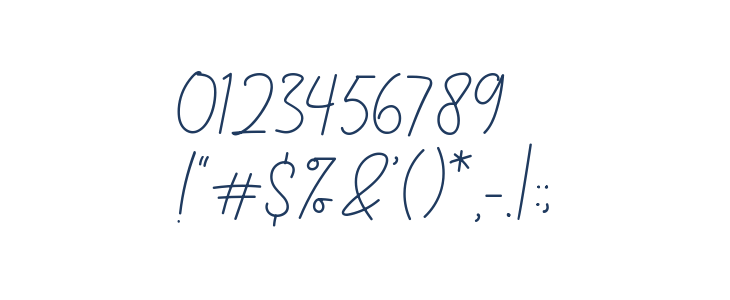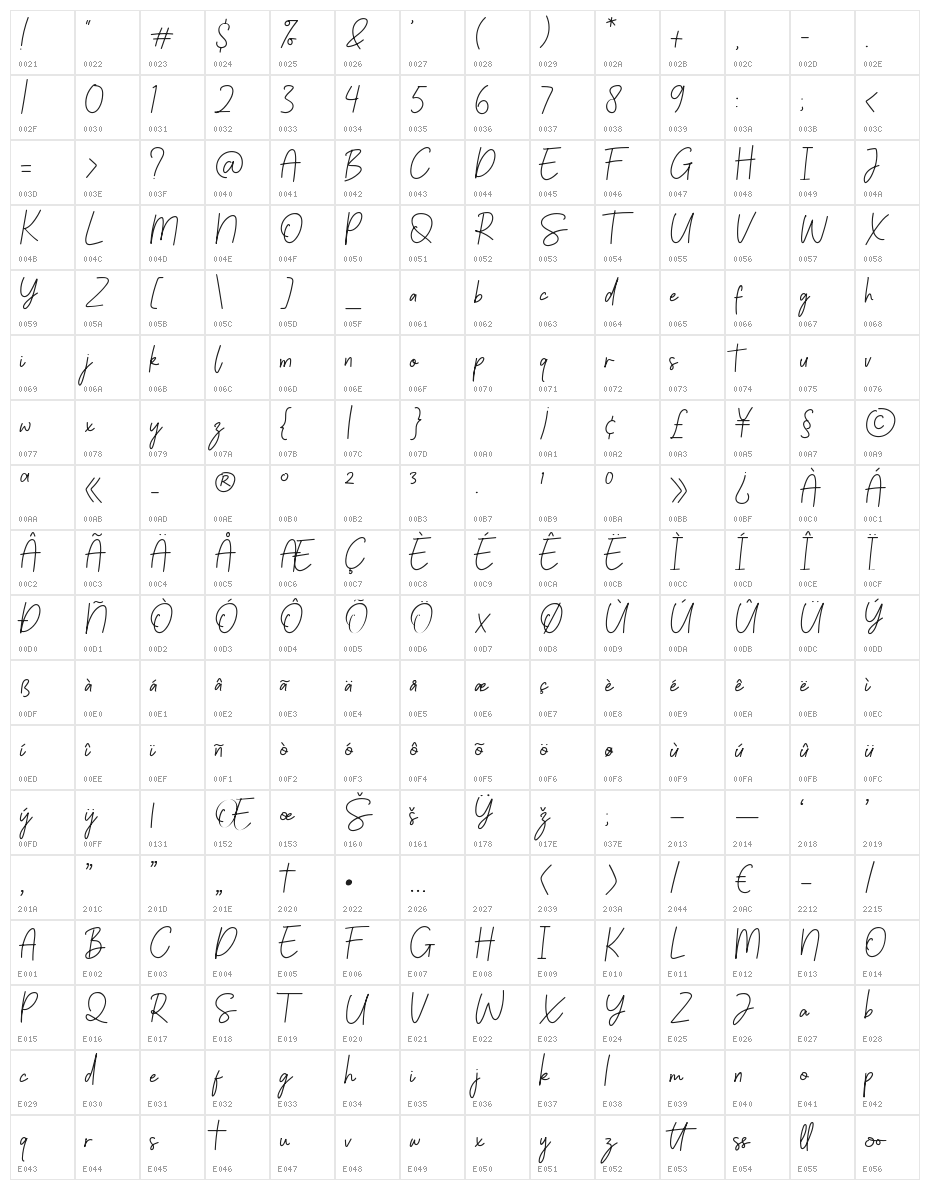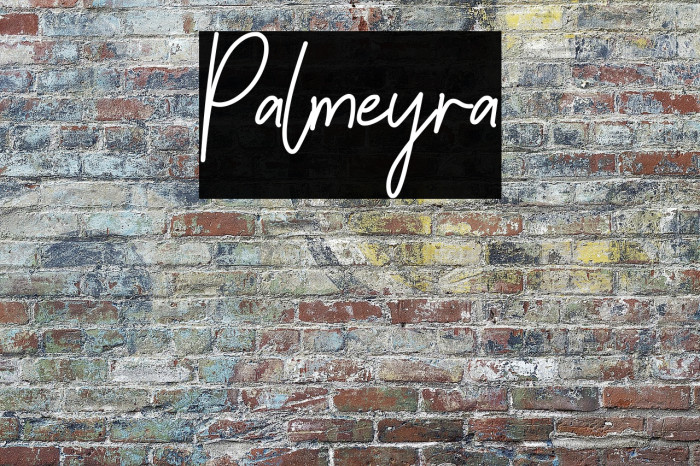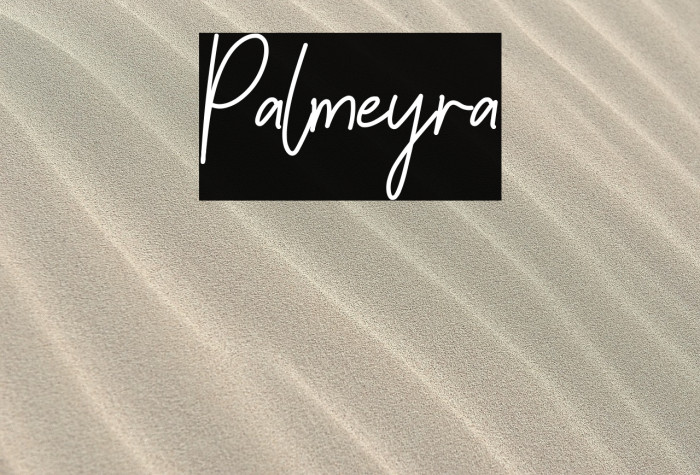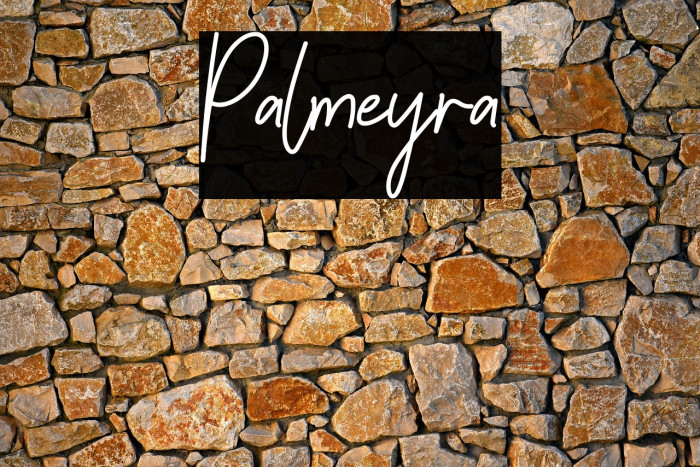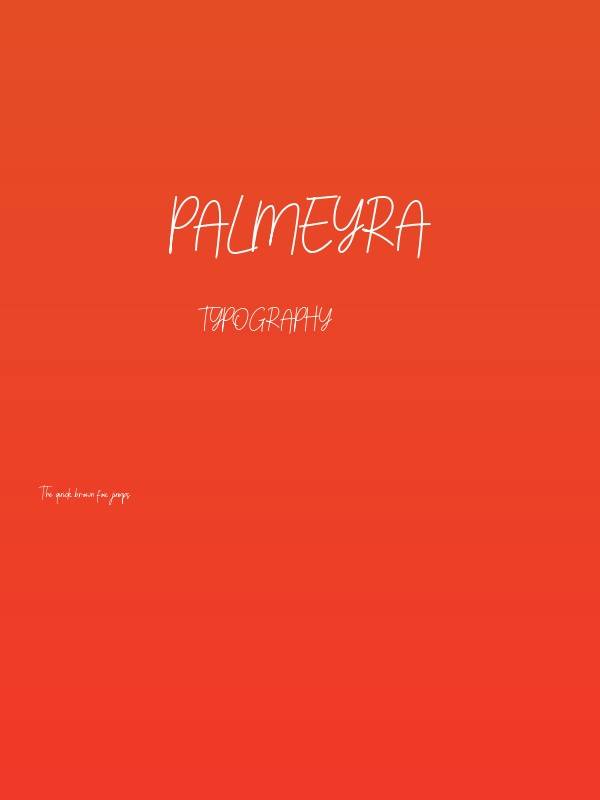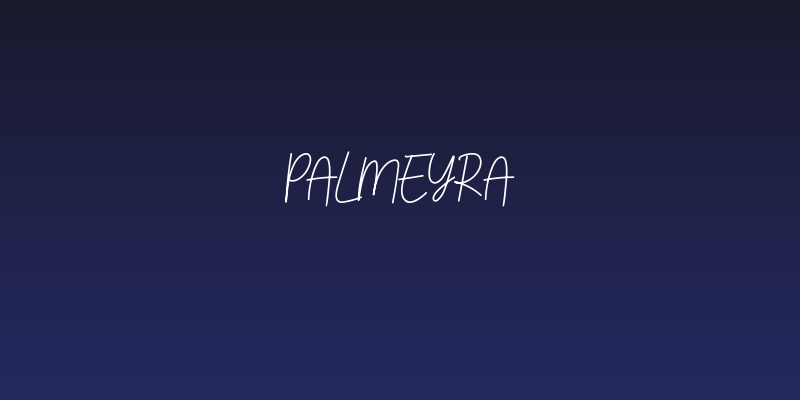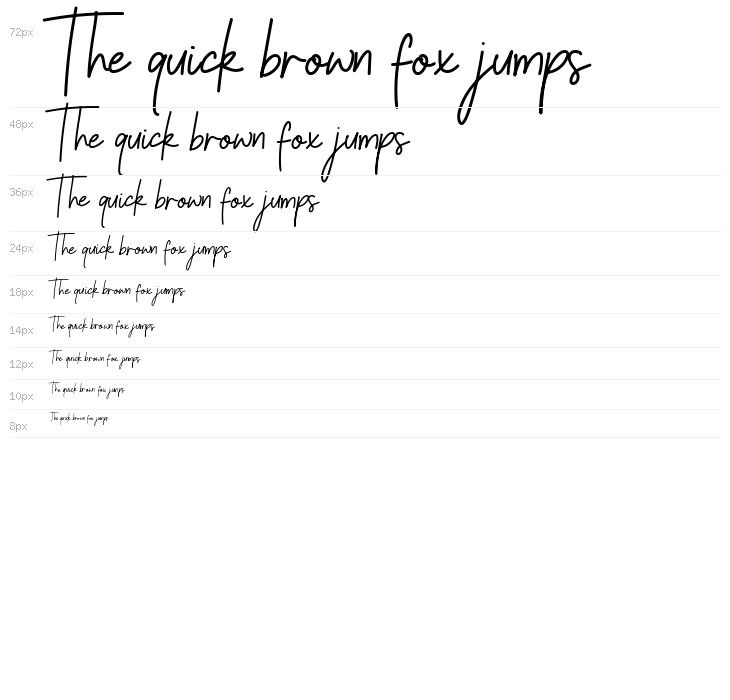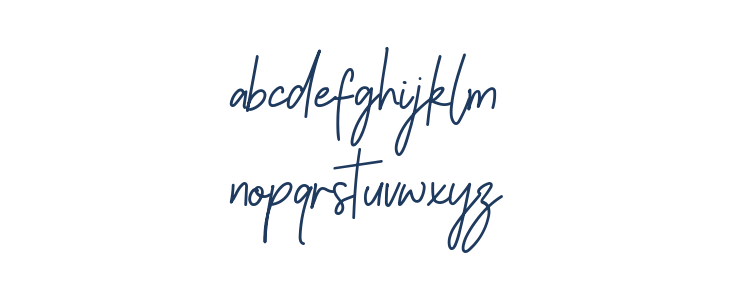
Palmeyra Font
Palmeyra Description
This font features a casual, handwritten style with a playful and dynamic appearance. The letters are slightly slanted, giving it an informal and approachable feel. The strokes are smooth and fluid, with a consistent thickness that maintains readability while adding a touch of elegance. The uppercase and lowercase letters are well-proportioned, and the numerals are clear and distinct. Special characters are creatively integrated, maintaining the overall aesthetic of the font. This style is perfect for projects that require a personal touch or a creative flair.
| Use Case | Logos, Invitations, Personal branding |
| Proposed Projects | Ideal for greeting cards, invitations, personal branding, and creative projects. |